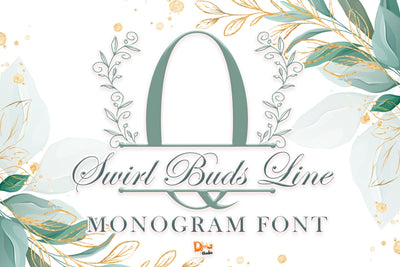
Swirl Buds Line Monogram
Swirl Buds Line Monogram – Elegant & Decorative Monogram Font
Swirl Buds Line Monogram is a beautifully designed monogram font featuring intricate swirling lines and delicate bud-inspired details. Perfect for luxury branding, wedding invitations, personalized stationery, boutique packaging, and artistic monogram designs, this font blends elegance with ornamental charm, making every project feel refined and sophisticated.
- Intricate Swirl & Bud Details: A graceful combination of delicate curves and botanical-inspired elements.
- Perfect for Luxury & Elegant Projects: Ideal for wedding stationery, logos, branding, and personalized gifts.
- Ornamental & Timeless Aesthetic: A sophisticated blend of artistic swirls and fine line details.
- Complete Character Set: Includes uppercase, lowercase, numbers, punctuation, and multilingual support.